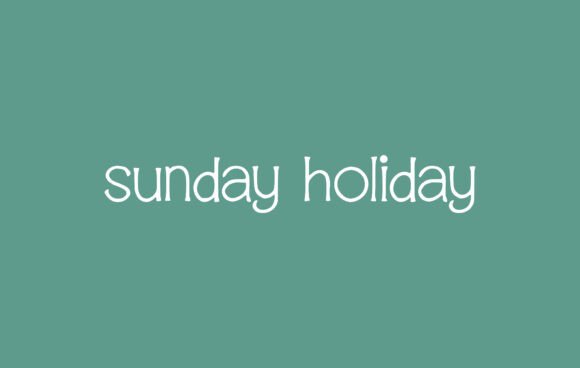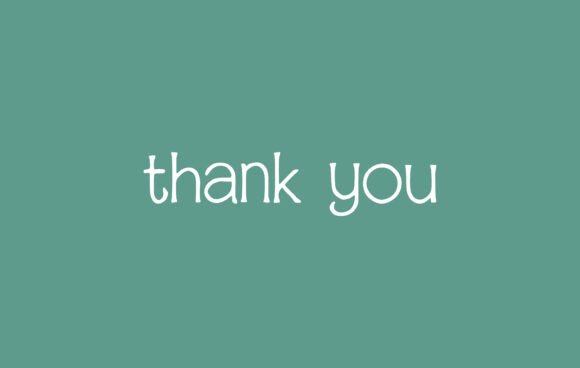
Introduction to Psychedelic Frog Font
Psychedelic Frog font is an authentic handwritten font with a romantic touch.
Key Features of Psychedelic Frog Font
Why Choose Psychedelic Frog Font?
Psychedelic Frog Font offers exceptional quality and versatility, making it a valuable addition to your design toolkit. Whether you’re creating for personal projects or commercial use, Psychedelic Frog Font delivers professional results.